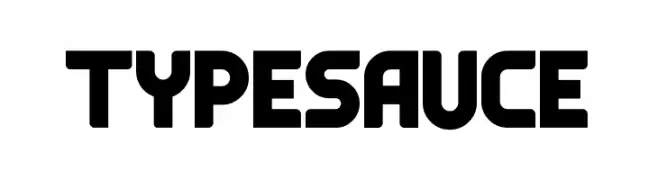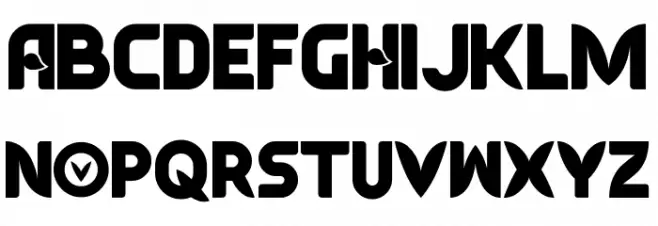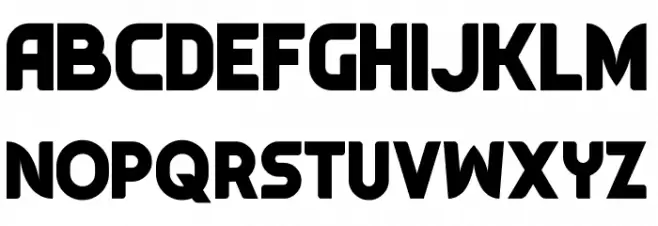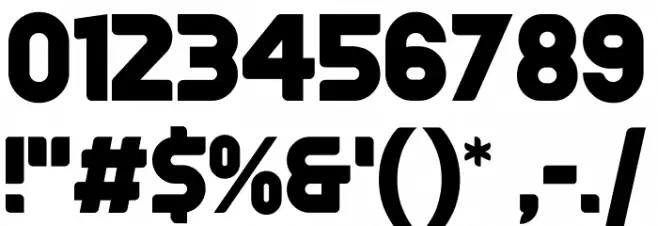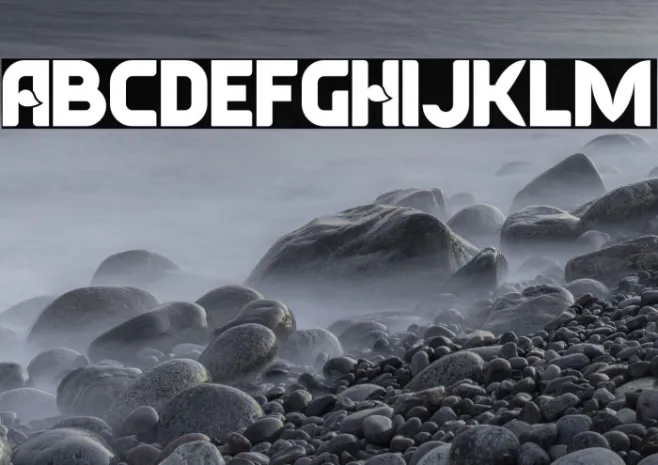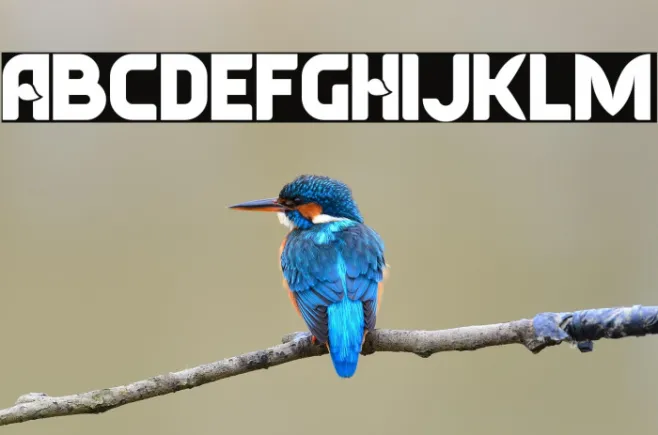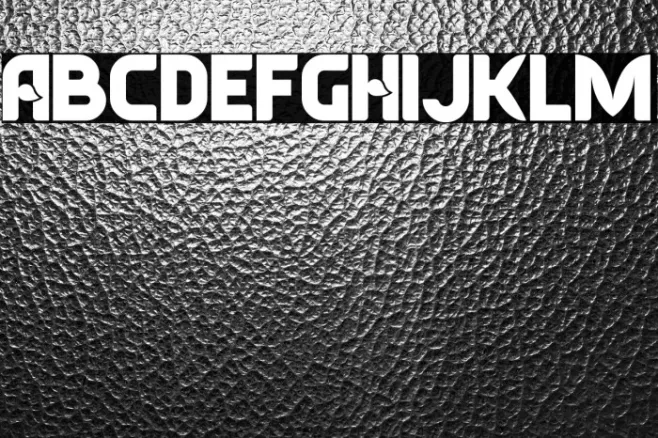
Typesauce Font
TYPESAUCE REGULAR V1.0.0
"Typesauce" is a typeface based on an original logo design by Evan Hogan|@CWCVille97 (https://booru.vineshroom.net/post/view/32299), made for Vinesauce, a Twitch.TV streaming group.
Additional letters provided by AlizarinRed|@TheAlizarinRed, from the "Vinemon: Sauce Edition" project (http://alizarin.red/).
"Vinion" mascot symbol provided by ShyGuyXXL|@ShyGuyXXL.